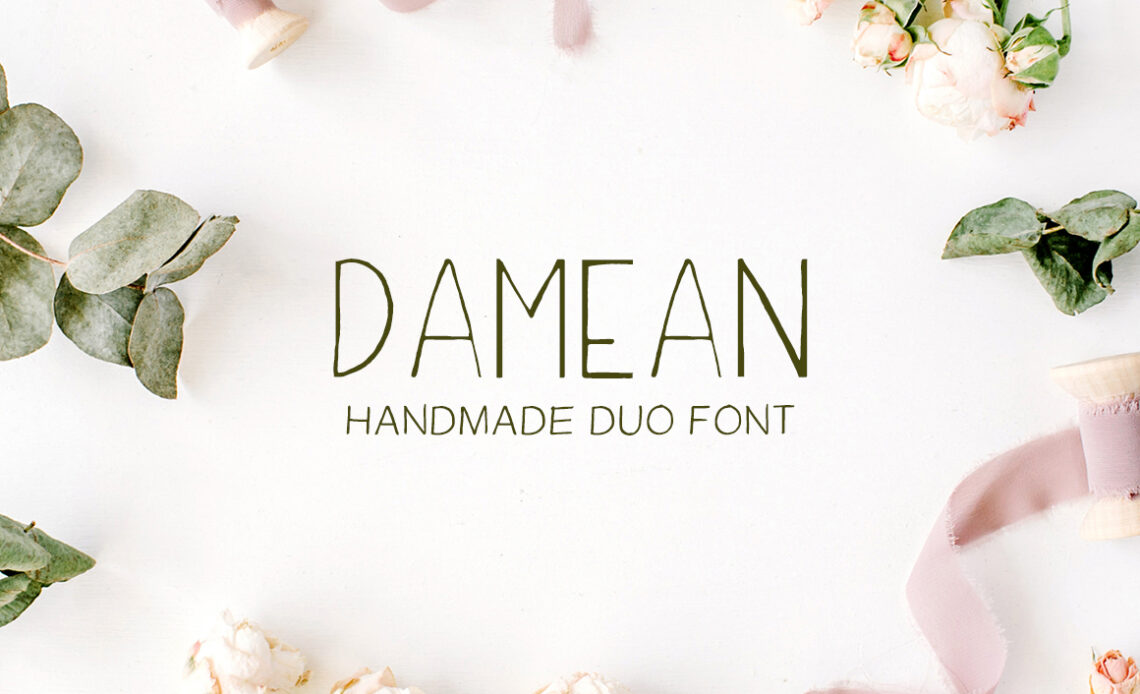
Unleash your creativity and step into the world of Damean Handmade Duo Font, a captivating sans serif font family designed to ignite your imagination and transform your designs into masterpieces. Crafted by the talented hands at Creative Tacos, Damean is not just a collection of letters; it's an artistic journey that blends the fluidity of handwriting with the sophistication of a modern typeface.
Damean's essence lies in its organic and warm nature, inviting your designs to radiate with a touch of human connection. Each glyph is carefully drawn to emulate the natural flow of handwriting, giving your words an authentic and personal feel. Its sans serif structure adds a contemporary twist, ensuring readability and versatility across various design applications.
With Damean, you're not limited to a single style. This dynamic duo offers two distinct variations: Damean Regular and Damean Italic. Damean Regular exudes a bold and confident personality, perfect for headlines, logos, and branding elements that demand attention. Damean Italic, on the other hand, is the epitome of elegance and grace, adding a touch of refinement to invitations, quotes, or any text that yearns for a touch of sophistication.
The beauty of Damean lies in its versatility. It seamlessly adapts to a wide spectrum of design styles, from the classic and timeless to the trendy and experimental. Whether you're crafting a vintage poster, a modern website, or a playful social media post, Damean effortlessly blends in, enhancing your designs with its charming presence.
If you seek a font duo that speaks volumes and captures hearts, look no further. Damean Handmade Duo Font is your gateway to creating designs that resonate with your audience, leaving a lasting impression that lingers in their minds. Embrace Damean and watch your creative vision flourish, transforming ordinary words into extraordinary expressions of art.